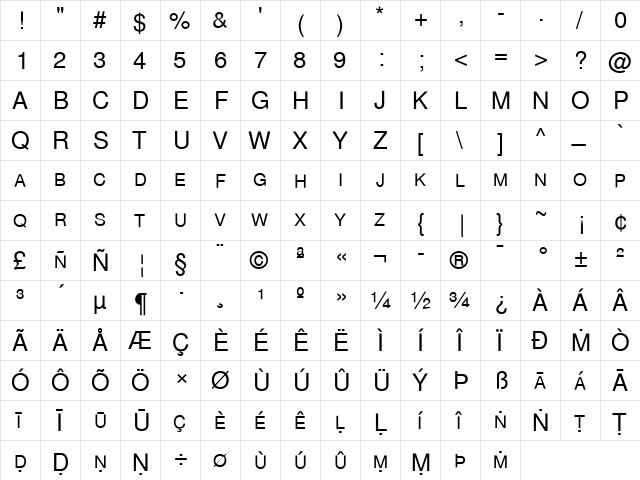
Pali Helvetica SmCps Regular
| Foundry | by URW |
Design Context for Pali Helvetica SmCps Typeface
Pali Helvetica SmCps is a composed and adaptable typeface that performs quietly and consistently across a wide range of design contexts.